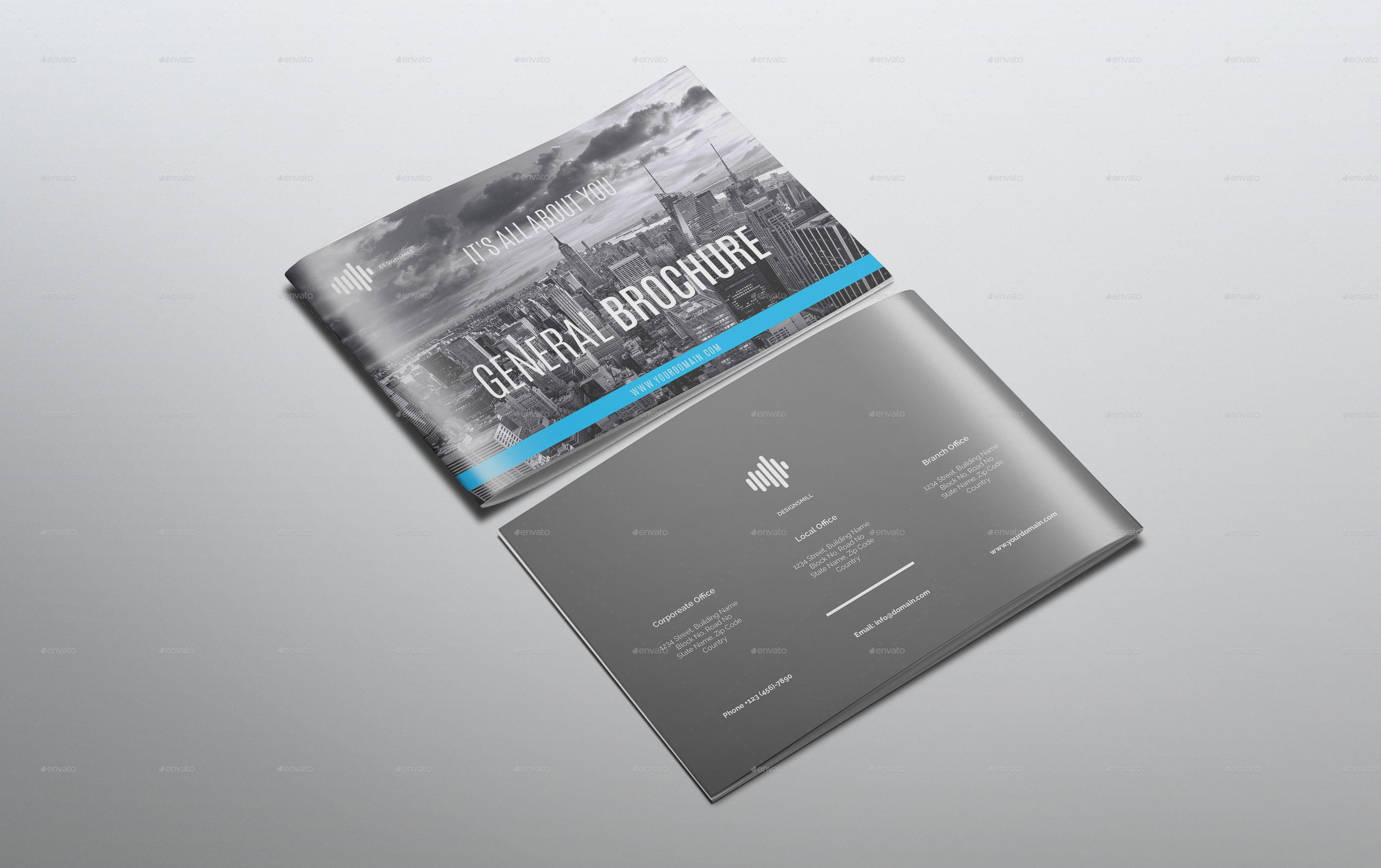
Best Font For Brochure Title . Discover the best fonts for brochures to enhance readability, reflect your brand, and engage audiences with our top. Whether you're creating a corporate pamphlet, an event flyer, or a creative showcase, these fonts provide the essential ingredients for a visually appealing and. Today, we'll give you some tips on how to choose a font for your brochure, show you some examples of fonts used in brochures, and. The best fonts for business brochures and flyers combine classic styling with modern features. One of the most common serif fonts used in print is times new roman. The key to picking a good typography font for a digital catalog is to find something that’s legible even at smaller. Serif fonts work well for titles of brochures, especially when paired with sans serif fonts or the ones without the. The best typography fonts for catalogs.
The best fonts for business brochures and flyers combine classic styling with modern features. The best typography fonts for catalogs. Discover the best fonts for brochures to enhance readability, reflect your brand, and engage audiences with our top. The key to picking a good typography font for a digital catalog is to find something that’s legible even at smaller. Today, we'll give you some tips on how to choose a font for your brochure, show you some examples of fonts used in brochures, and. One of the most common serif fonts used in print is times new roman. Serif fonts work well for titles of brochures, especially when paired with sans serif fonts or the ones without the. Whether you're creating a corporate pamphlet, an event flyer, or a creative showcase, these fonts provide the essential ingredients for a visually appealing and.
Best Font For Brochure Title Today, we'll give you some tips on how to choose a font for your brochure, show you some examples of fonts used in brochures, and. The key to picking a good typography font for a digital catalog is to find something that’s legible even at smaller. Discover the best fonts for brochures to enhance readability, reflect your brand, and engage audiences with our top. One of the most common serif fonts used in print is times new roman. Today, we'll give you some tips on how to choose a font for your brochure, show you some examples of fonts used in brochures, and. Serif fonts work well for titles of brochures, especially when paired with sans serif fonts or the ones without the. The best typography fonts for catalogs. The best fonts for business brochures and flyers combine classic styling with modern features. Whether you're creating a corporate pamphlet, an event flyer, or a creative showcase, these fonts provide the essential ingredients for a visually appealing and.
10+ Best Fonts for Brochures in 2021 Free and Premium Fonts Best Font For Brochure Title One of the most common serif fonts used in print is times new roman. The best typography fonts for catalogs. The best fonts for business brochures and flyers combine classic styling with modern features. Discover the best fonts for brochures to enhance readability, reflect your brand, and engage audiences with our top. Serif fonts work well for titles of brochures,. Best Font For Brochure Title.
Generic Bold Text Brochure Template Vector Download Best Font For Brochure Title Whether you're creating a corporate pamphlet, an event flyer, or a creative showcase, these fonts provide the essential ingredients for a visually appealing and. Today, we'll give you some tips on how to choose a font for your brochure, show you some examples of fonts used in brochures, and. The key to picking a good typography font for a digital. Best Font For Brochure Title.
25+ Best Fonts for Brochures and Flyers (with tips) Creative Fabrica Best Font For Brochure Title The key to picking a good typography font for a digital catalog is to find something that’s legible even at smaller. The best typography fonts for catalogs. Serif fonts work well for titles of brochures, especially when paired with sans serif fonts or the ones without the. Today, we'll give you some tips on how to choose a font for. Best Font For Brochure Title.
The Best Fonts for Brochures (with Examples) Envato Tuts+ Best Font For Brochure Title The key to picking a good typography font for a digital catalog is to find something that’s legible even at smaller. One of the most common serif fonts used in print is times new roman. Serif fonts work well for titles of brochures, especially when paired with sans serif fonts or the ones without the. Whether you're creating a corporate. Best Font For Brochure Title.
The Best Fonts for Brochures and Flyers in 2024 Best Font For Brochure Title The best typography fonts for catalogs. Whether you're creating a corporate pamphlet, an event flyer, or a creative showcase, these fonts provide the essential ingredients for a visually appealing and. Discover the best fonts for brochures to enhance readability, reflect your brand, and engage audiences with our top. The best fonts for business brochures and flyers combine classic styling with. Best Font For Brochure Title.
Brochure Beauty 19 Best Fonts for Brochures Best Font For Brochure Title The key to picking a good typography font for a digital catalog is to find something that’s legible even at smaller. Whether you're creating a corporate pamphlet, an event flyer, or a creative showcase, these fonts provide the essential ingredients for a visually appealing and. The best typography fonts for catalogs. Serif fonts work well for titles of brochures, especially. Best Font For Brochure Title.
The Best Fonts for Brochures (with Examples) Envato Tuts+ Best Font For Brochure Title One of the most common serif fonts used in print is times new roman. Today, we'll give you some tips on how to choose a font for your brochure, show you some examples of fonts used in brochures, and. Discover the best fonts for brochures to enhance readability, reflect your brand, and engage audiences with our top. The key to. Best Font For Brochure Title.
the words best font for brochures are shown in black and white with an Best Font For Brochure Title Serif fonts work well for titles of brochures, especially when paired with sans serif fonts or the ones without the. One of the most common serif fonts used in print is times new roman. Whether you're creating a corporate pamphlet, an event flyer, or a creative showcase, these fonts provide the essential ingredients for a visually appealing and. Discover the. Best Font For Brochure Title.
20 Most Used Fonts for Brochure Design Best Font For Brochure Title One of the most common serif fonts used in print is times new roman. Today, we'll give you some tips on how to choose a font for your brochure, show you some examples of fonts used in brochures, and. The best typography fonts for catalogs. Serif fonts work well for titles of brochures, especially when paired with sans serif fonts. Best Font For Brochure Title.